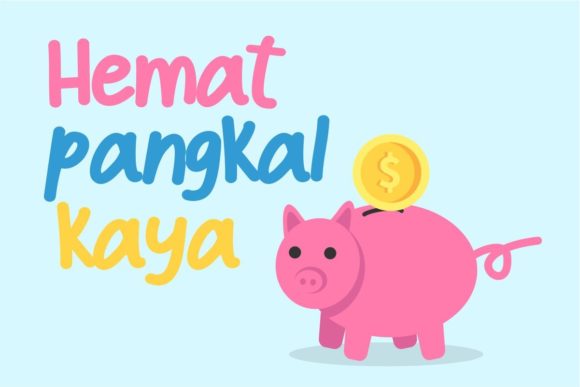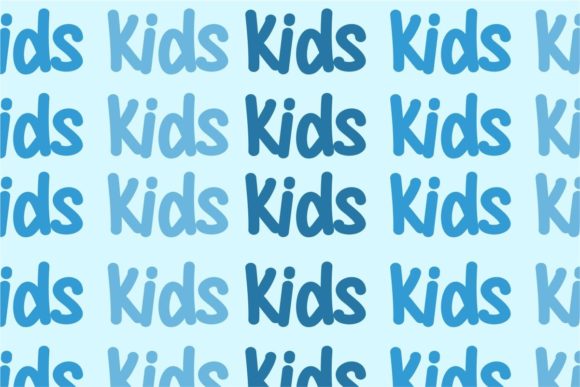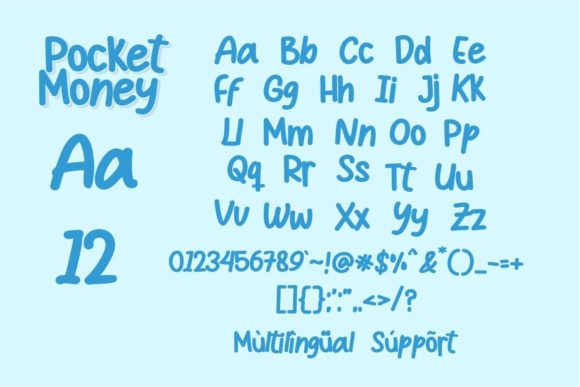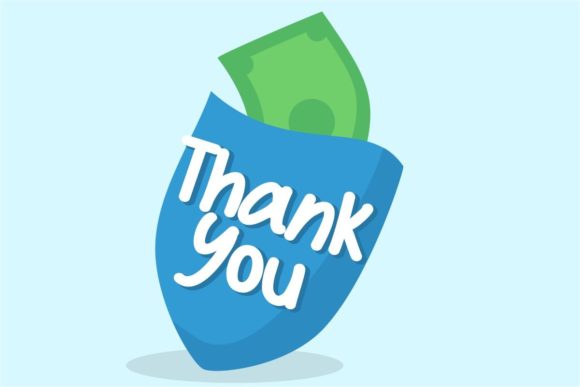
Discovering the Perfect Design Companion: Pocket Money Font
As a designer, have you ever found yourself staring at a blank canvas, searching for the perfect font to bring your creative project to life? It’s a moment we’ve all experienced – the excitement of a new idea, the frustration of not quite finding the right fit. But what if you stumbled upon a font that would become your go-to design companion, elevating each of your projects with its simplicity and charm?
Enter the Pocket Money Font, a high-quality display font designed to add a friendly and approachable touch to any design. With its transparent background and adaptable nature, this versatile font is the perfect addition to any design resource, waiting to be downloaded and used in your next creative project.
Whether you’re a seasoned designer or just starting out, the Pocket Money Font is a valuable asset to have in your toolkit, offering a hassle-free way to enhance your designs with a professional and stylish look.
Key Features of Pocket Money Font
- High-quality design for creative projects: The Pocket Money Font is designed to add a touch of elegance to your designs, making it perfect for various creative projects.
- Transparent background: The font features a transparent background, allowing you to easily layer it over other design elements and achieve a seamless look.
- High-resolution design: The font is designed at a high resolution, making it suitable for use in various creative projects, including print and digital media.
- Unique characteristics: The Pocket Money Font features a unique blend of modern and vintage elements, setting it apart from other fonts in its category.
Honest Review: Pocket Money Font
I recently came across the Pocket Money Font and was excited to give it a try. As a designer, I’m always on the lookout for new design resources to elevate my creative projects.
Here’s what works well: ✨ The font is super easy to download and use, with a transparent background that makes it perfect for any project. The high quality of the font is also noticeable, with clear and crisp letters that make it easy to read. The font also comes in a variety of styles, which makes it versatile for different design needs.
Here are some of the key features I love about Pocket Money Font:
- High quality font that’s perfect for creative projects
- Versatile font with various styles
Overall, I’m impressed with the Pocket Money Font and would definitely recommend it for personal projects or non-commercial use. However, if you’re looking for a font for commercial use or need to edit the font, you may want to look elsewhere.
Integrating Pocket Money Font in PowerPoint/Word
Open PowerPoint or Word and select the Pocket Money Font from the font library. You can use it to create engaging presentations, reports, or documents. The font’s high quality and transparent background ensure that your designs stand out.
Tips for Getting the Most Out of Pocket Money Font
To get the most out of the Pocket Money Font, use it in combination with other design elements, such as images or graphics. Experiment with different font sizes, colors, and styles to create unique and eye-catching designs.
The Pocket Money Font is ideal for a variety of creative projects, including social media graphics, presentations, reports, and documents. Its high quality and transparent background make it an excellent choice for designers and non-designers alike.